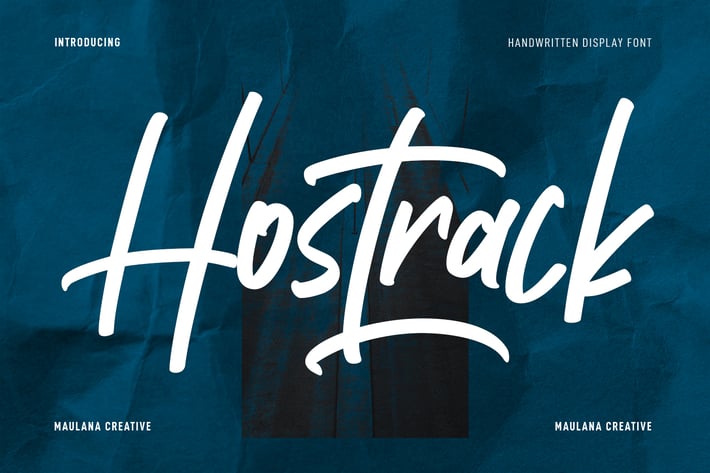
Hostrack Handwritten Font
Hostrack is a Casual slant Script font. With bold contrast stroke, fun character with a bit of ligatures and swash. To give you an extra creative work. Hostrack font support multilingual more than 100+ language. This font is good for logo design, Social media, Movie Titles, Books Titles, a short text even a long text letter and good for your secondary text font with sans or serif. Make a stunning work with Hostrack font.